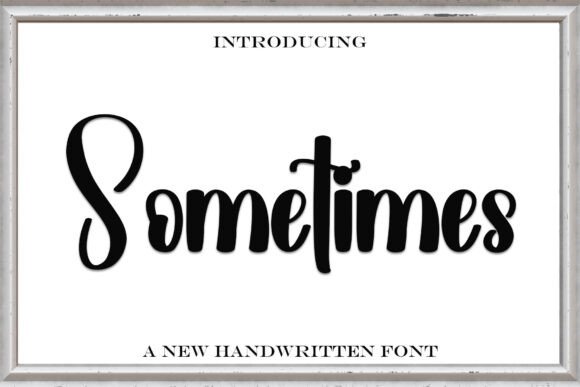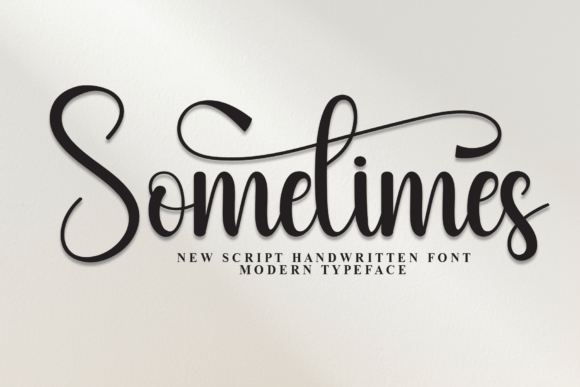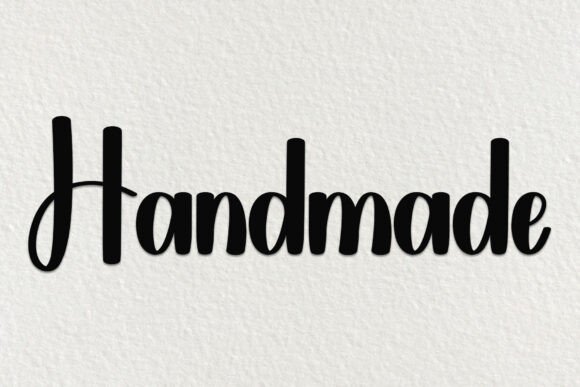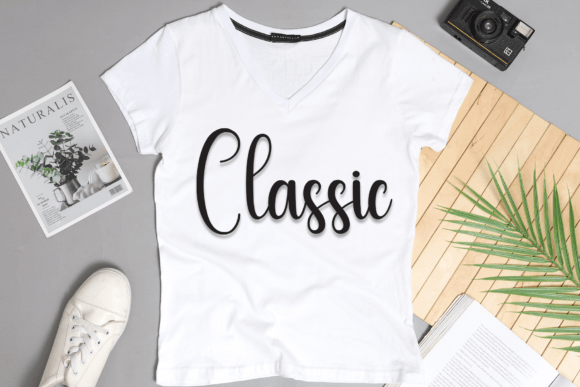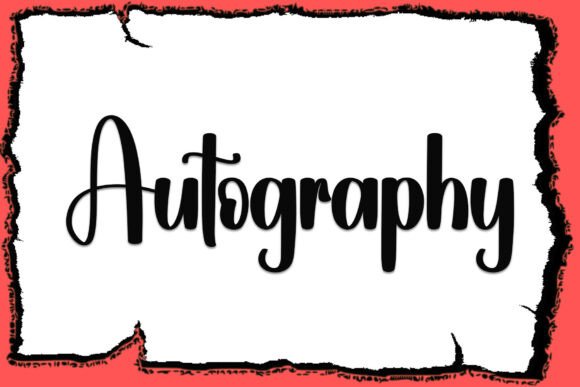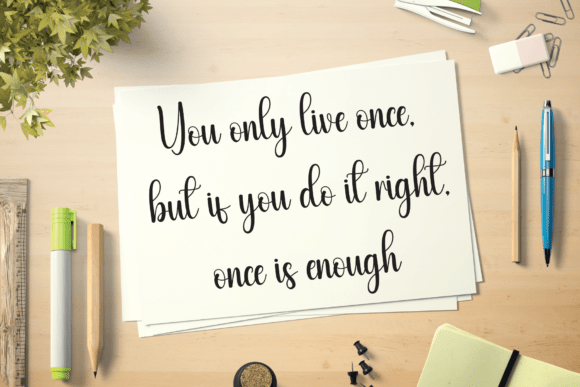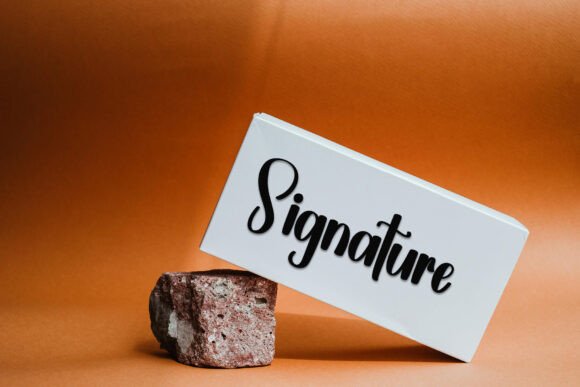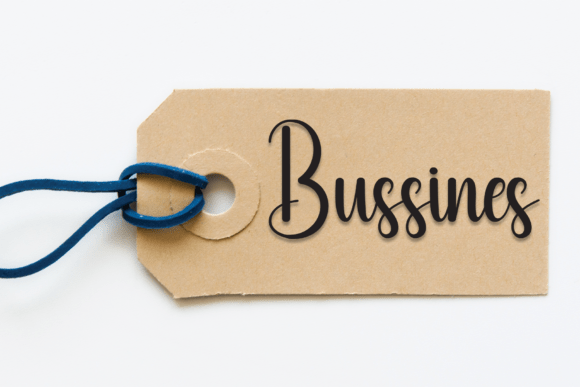
Sometimes Font: A Sweet Handwritten Script for Wedding Designs
About the Sometimes Font
Crafted with precision, the Sometimes Font is ready to bring your ideas to life. Sometimes is a sweet and cursive handwritten font. This gentle font will look gorgeous on a variety of design ideas. It will add a joyful and romantic touch to each of your projects! Perfectly fit for branding, logo, wedding things, greeting cards, fashion, lookbook, marketing promotion, and any time you want your design to look fancy and elegant but still casual.
Sometimes Font Usage Examples
Sometimes Font Example